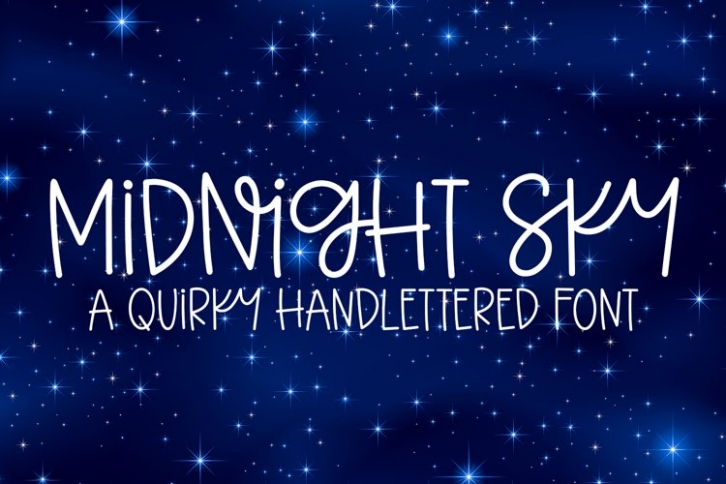
Midnight Sky is a beautiful font that was designed by plusstore. It's a great choice for designers and creatives who need such a font. It was released on July 9, 2022 and the file size is 5.55 MB. Midnight Sky may give a more youthful, expressive and casual look to your project. It is a very beautiful, refined, elegant, and high-quality font.